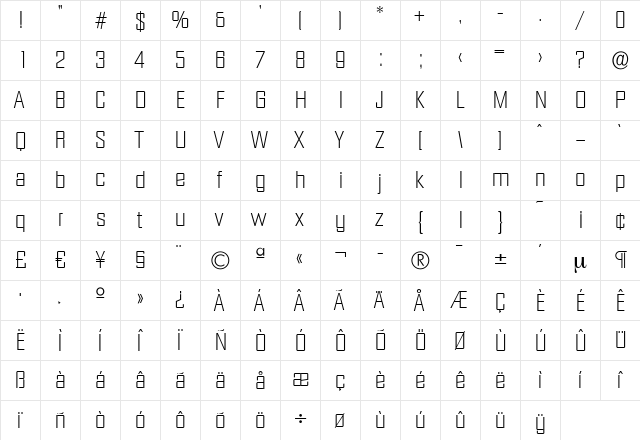
SeanBecker-ExtraLight Regular
Design Context for SeanBecker-ExtraLight Typeface
SeanBecker-ExtraLight offers clean, dependable letterforms without strong stylistic allegiance, making it a practical choice for designers who need flexibility. The delicate stroke weight brings airiness and refinement to layouts.